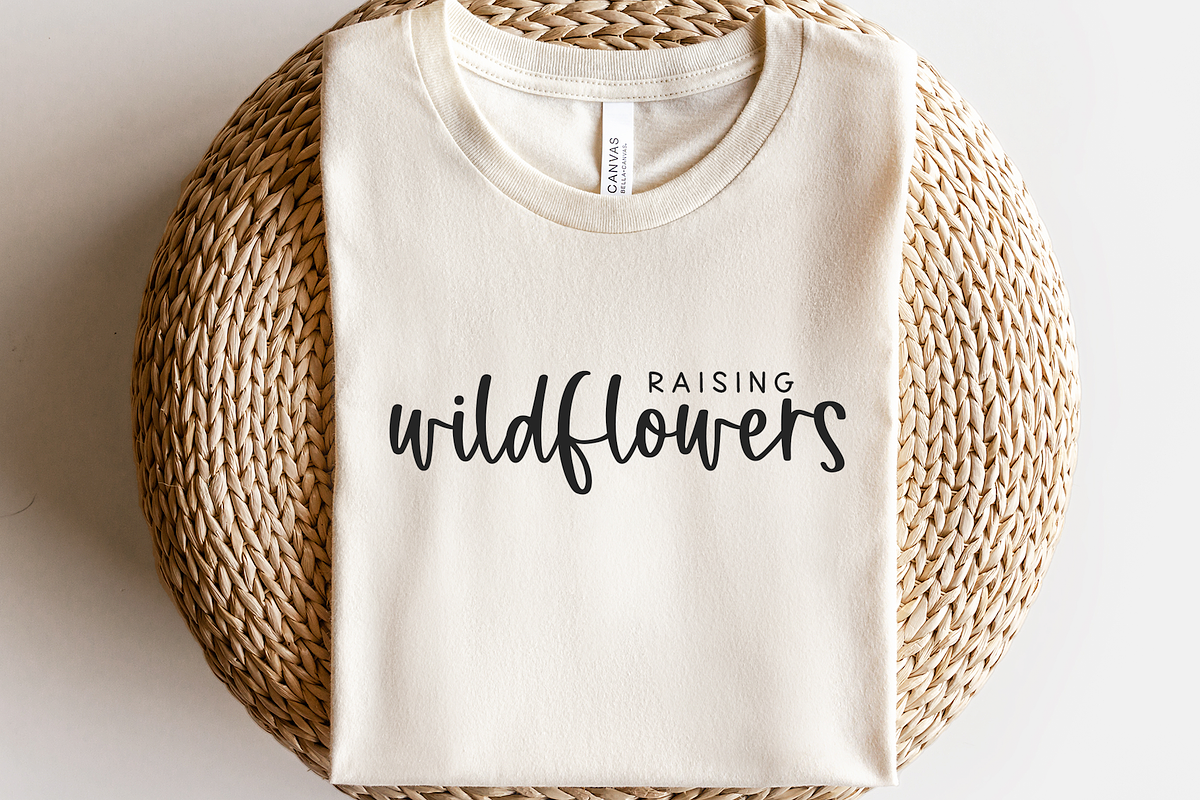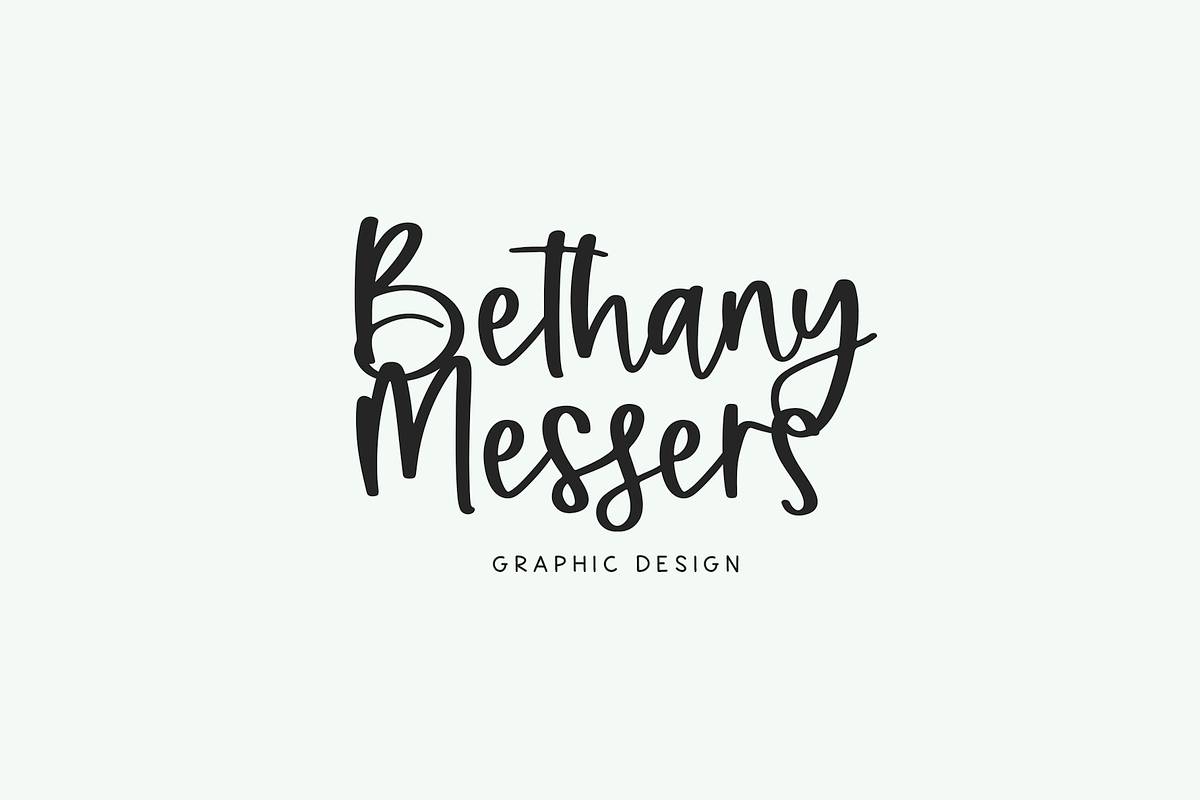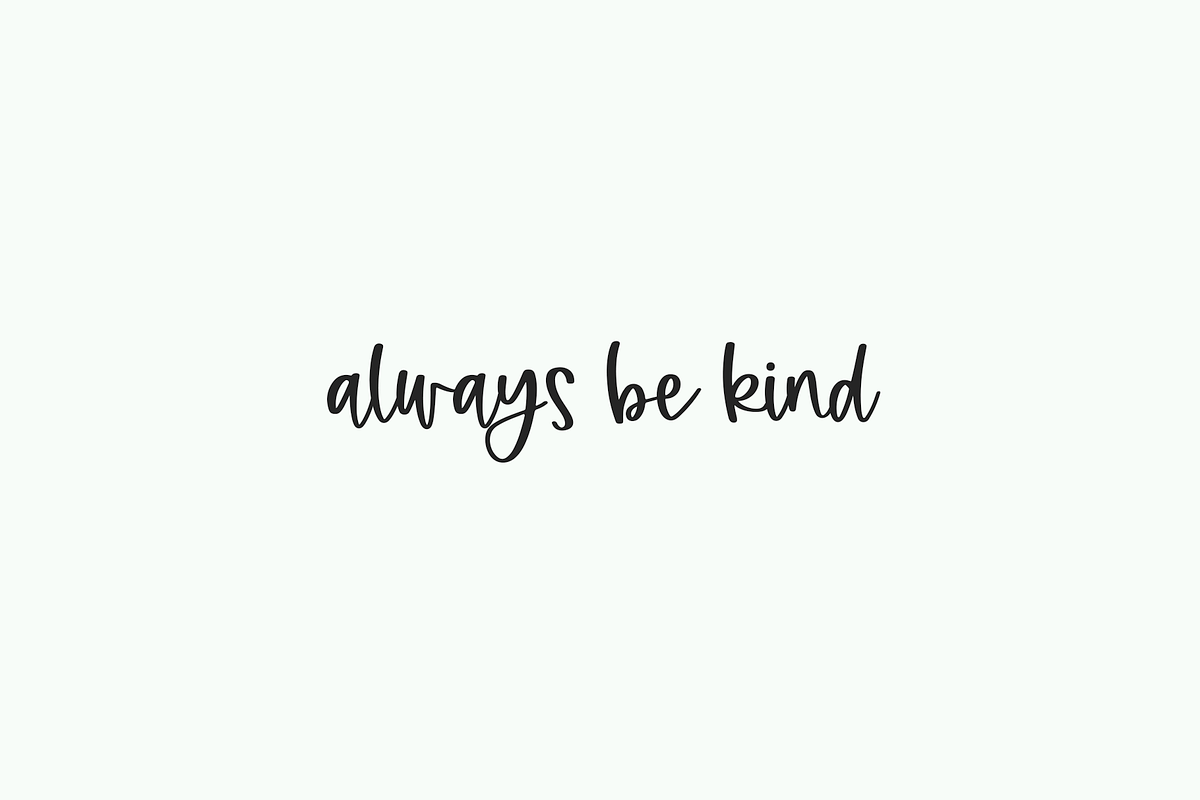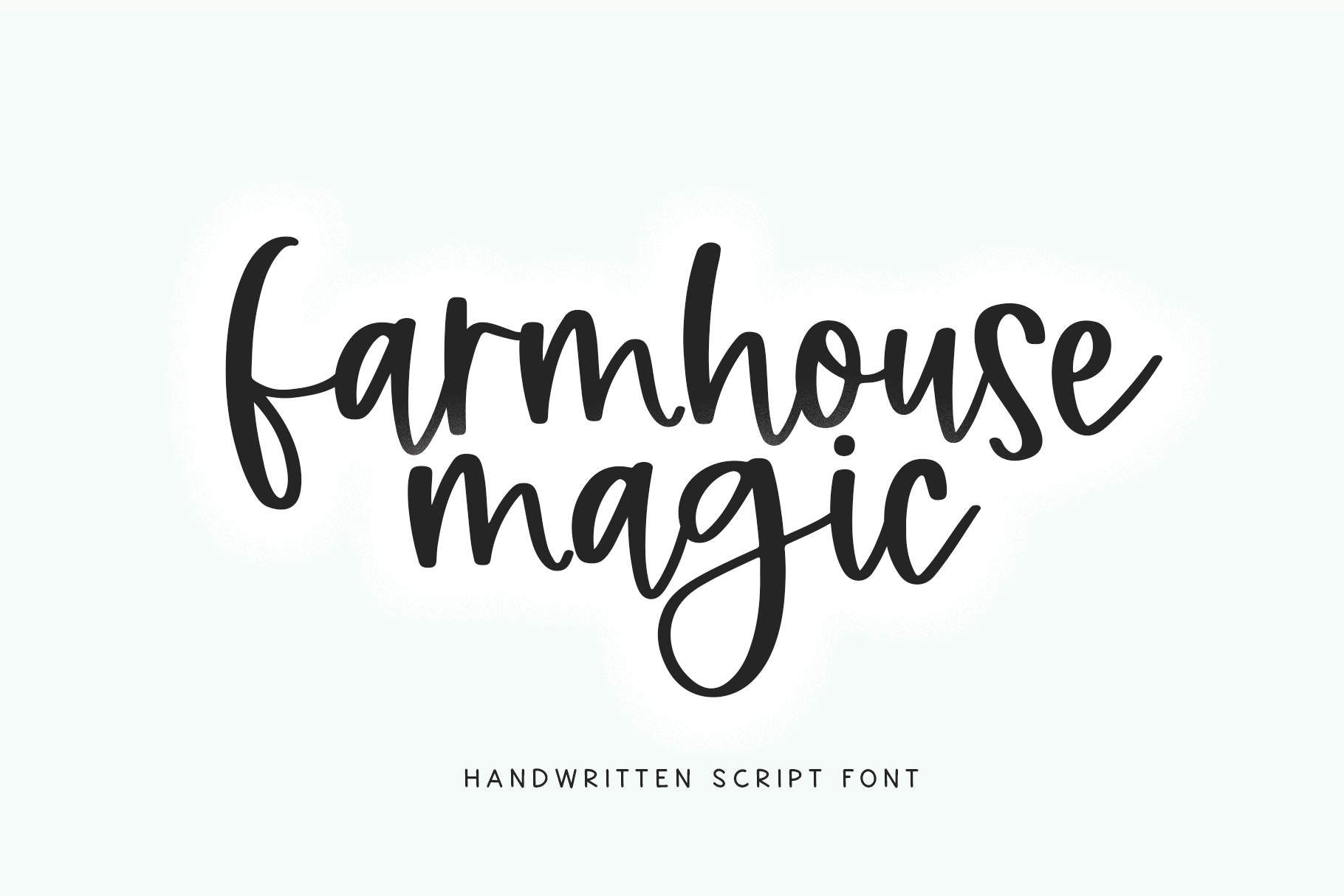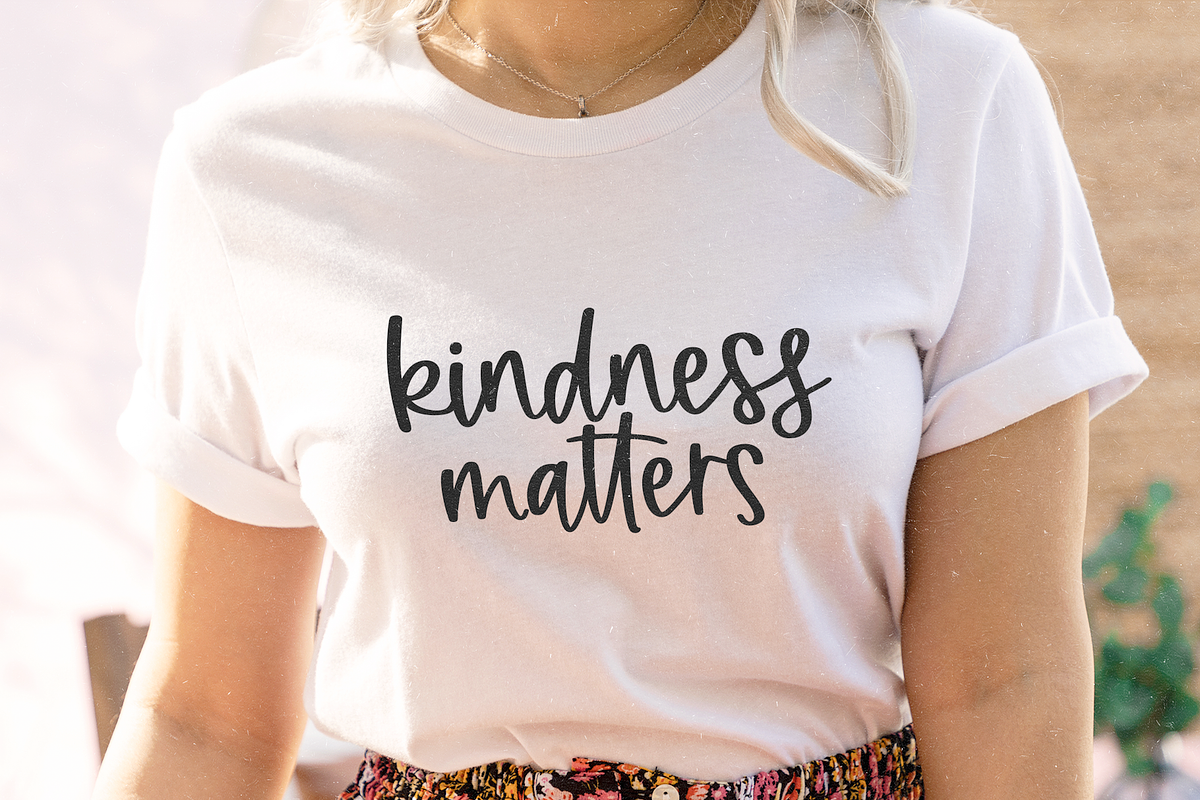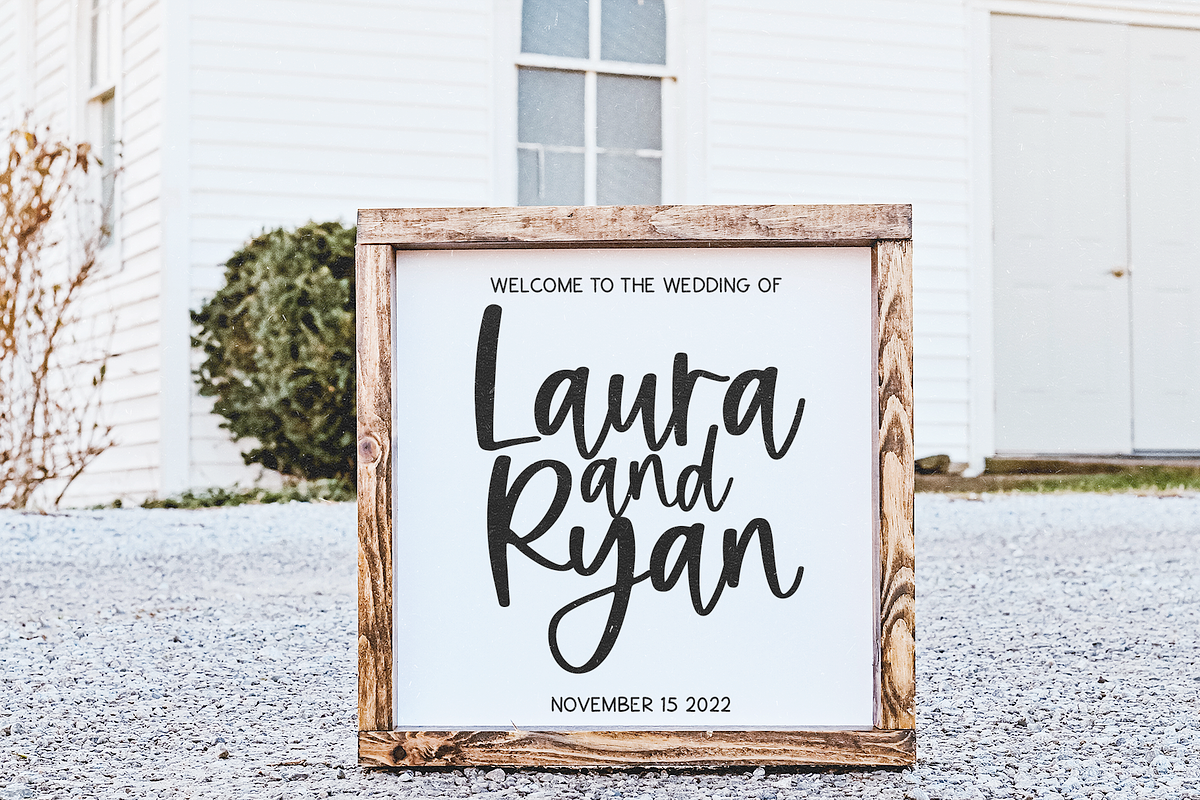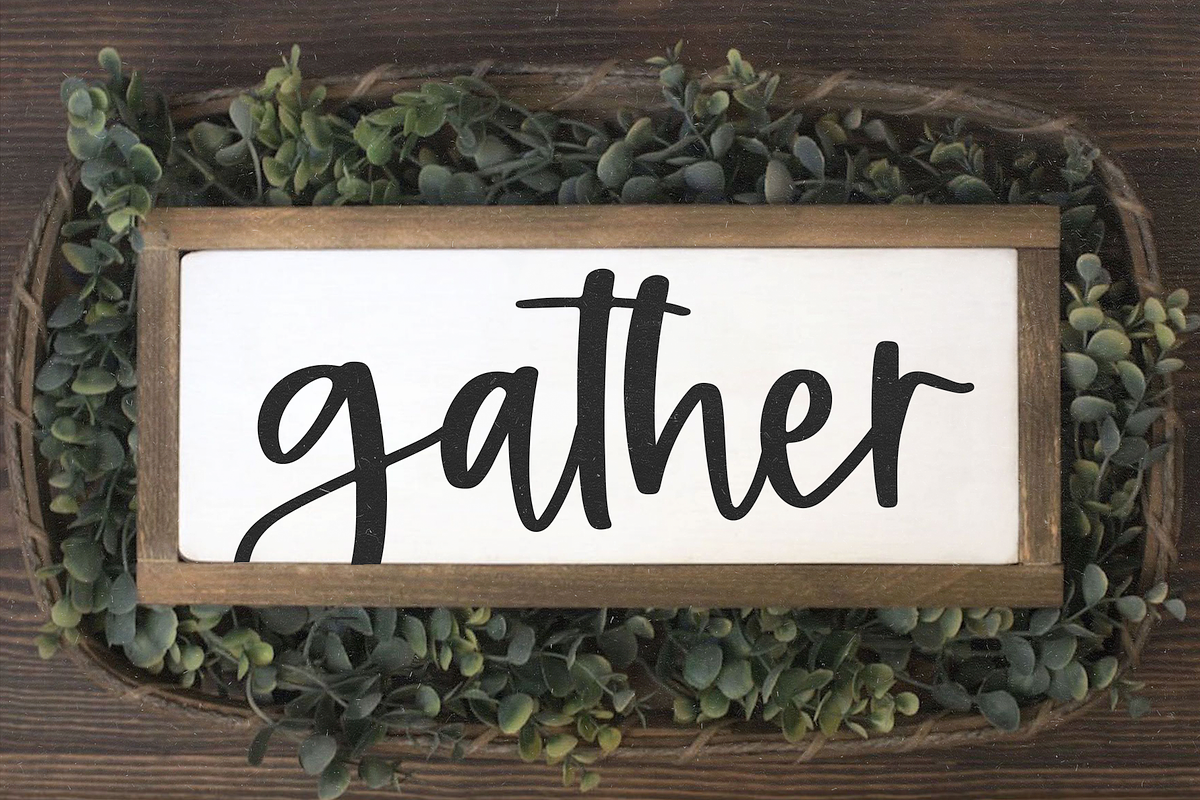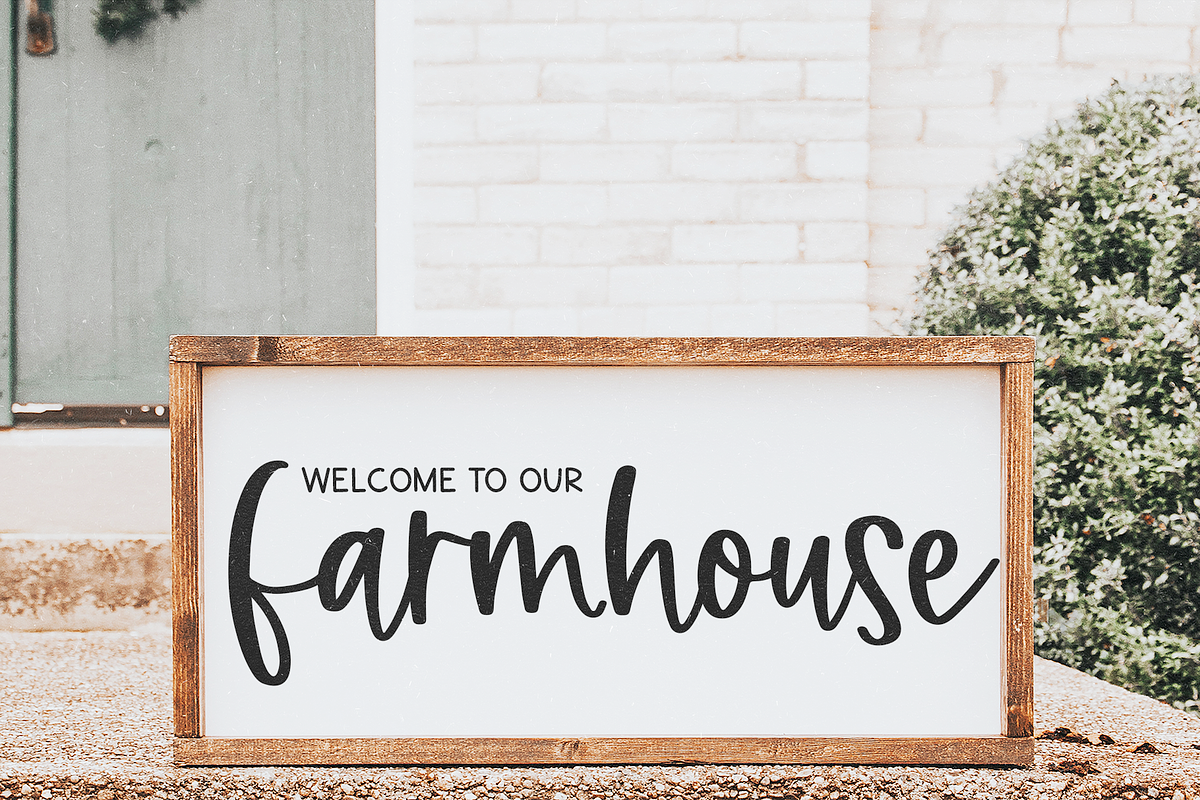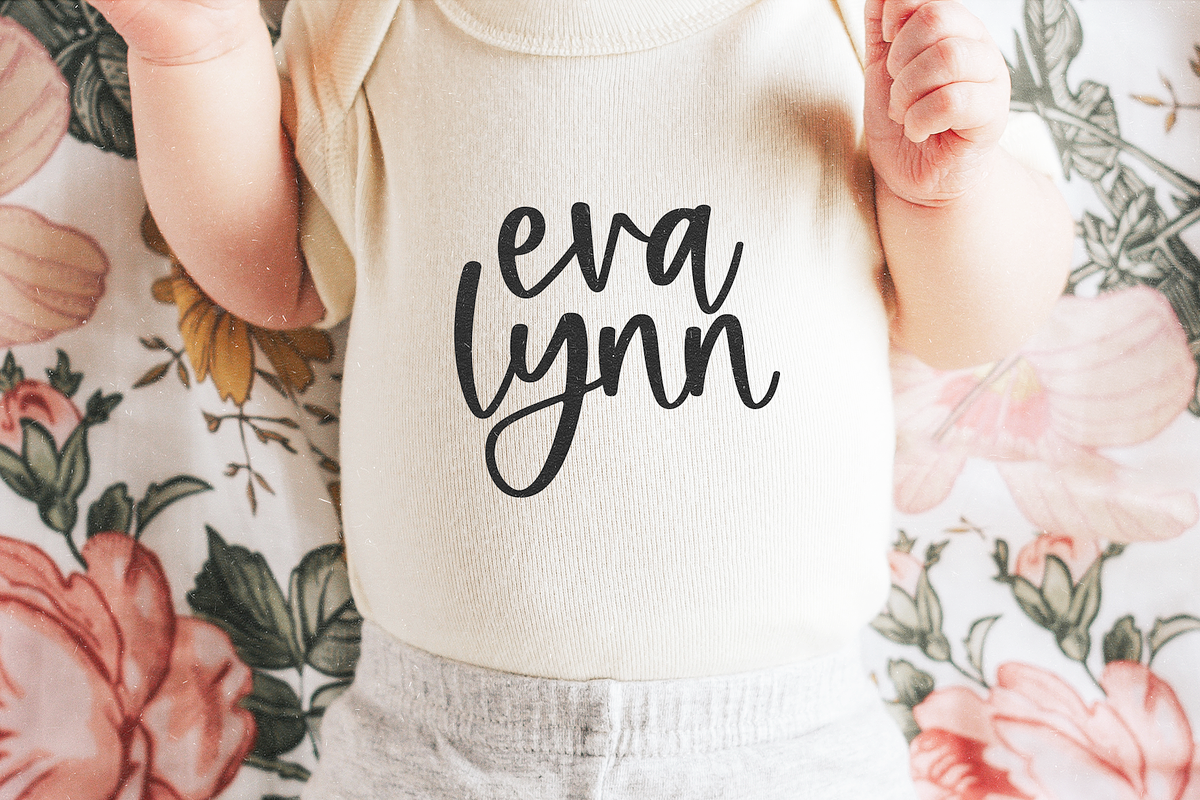
Farmhouse Magic | Modern Script Font
Farmhouse Magic is a modern handwritten script font.
This font is perfect for farmhouse decor, svg designs, shirts, crafts, websites, branding, blogs, logos, invitations and more!